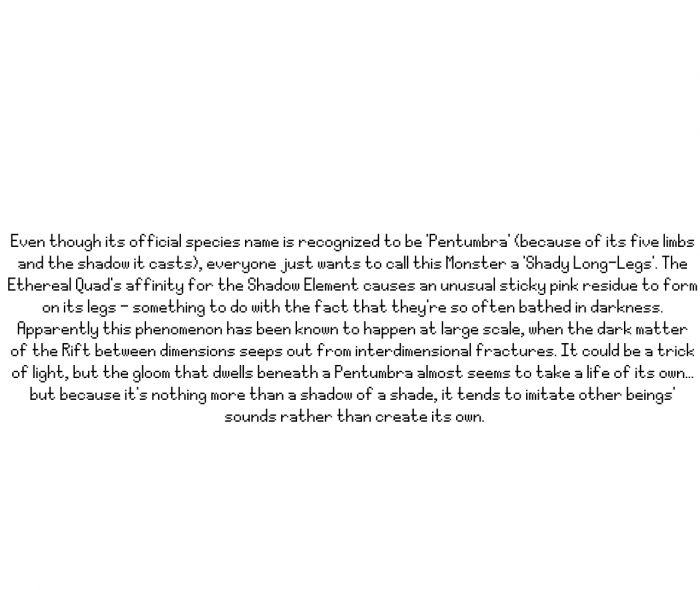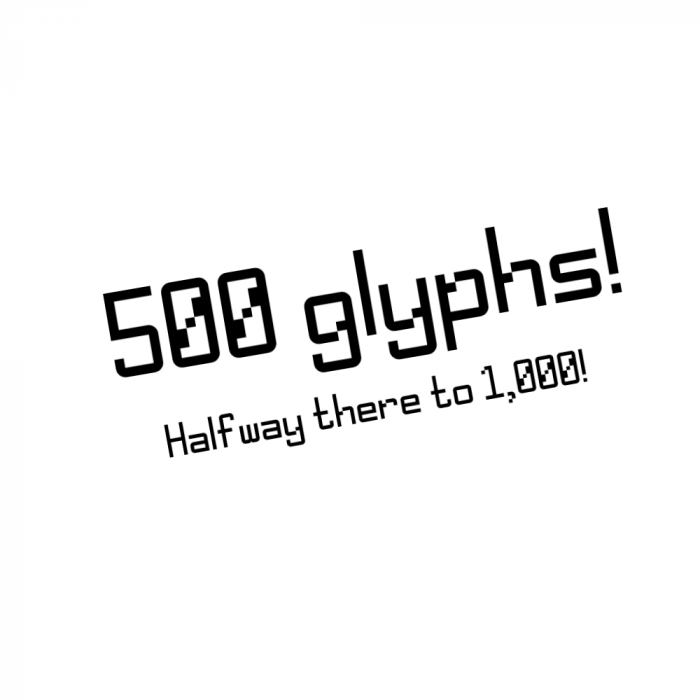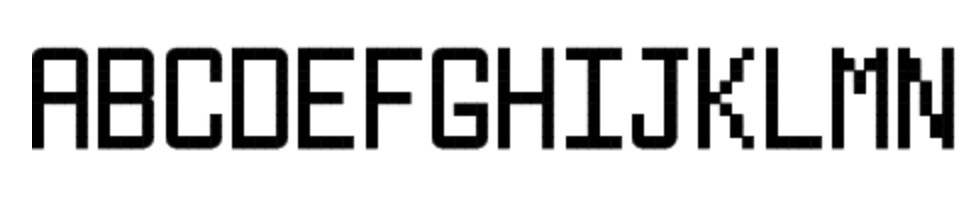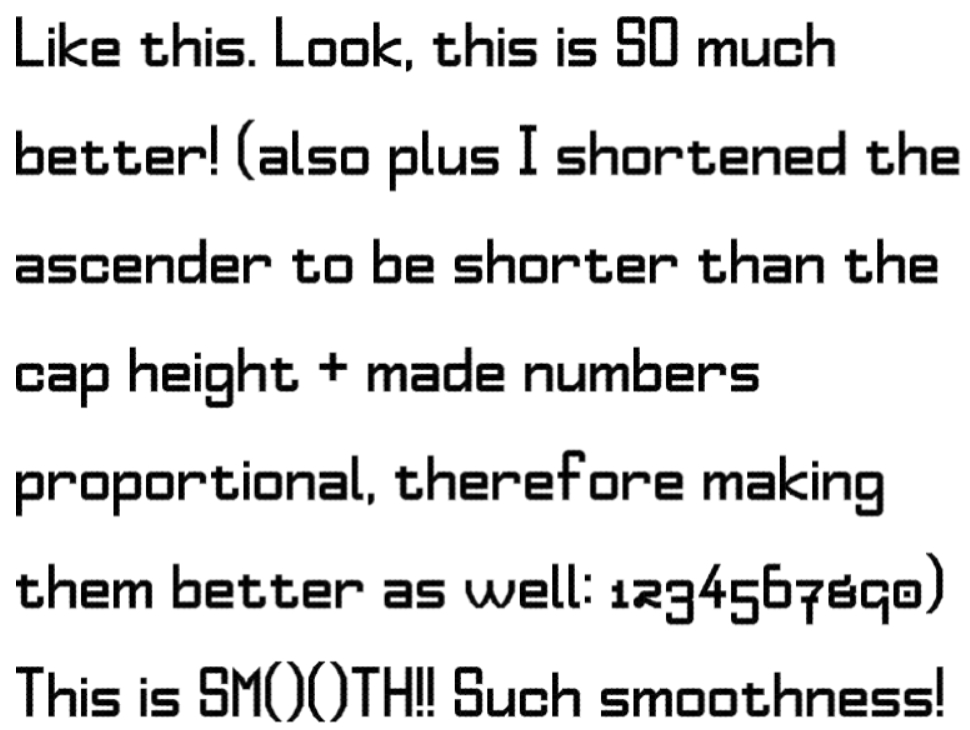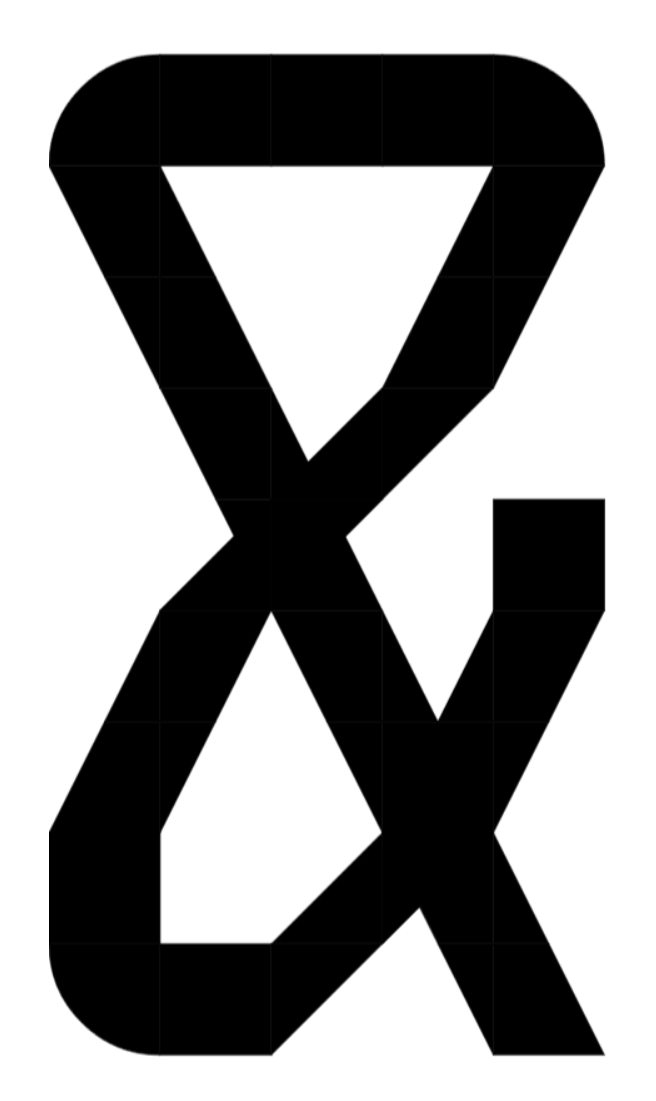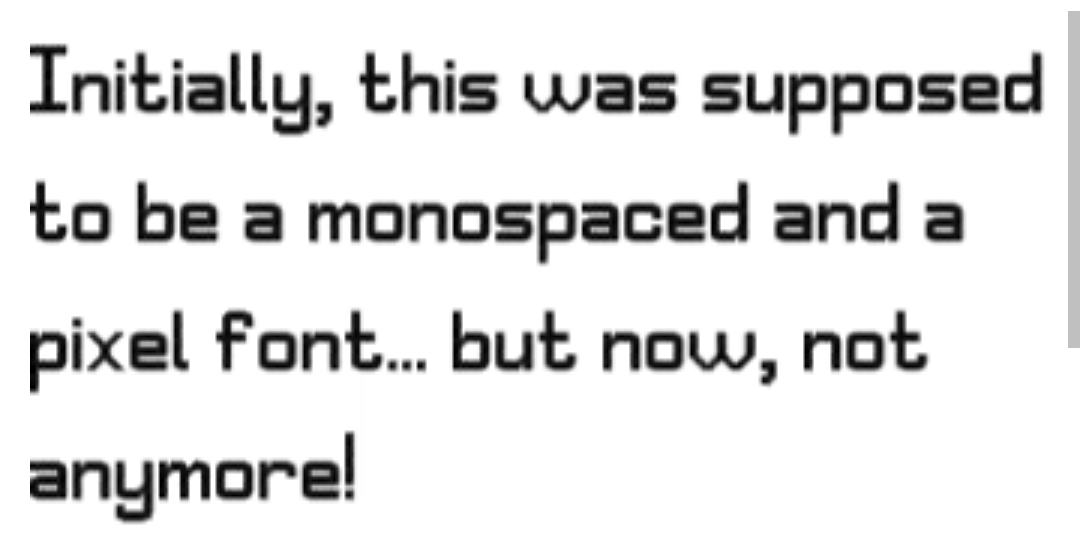
sample text:
no, this font isn't discontinued, i'm taking a break of it
finally this font has been updated after a long break
v1.0.2 is finally here
if more than 65,535 glyphs were possible, then i will rename it "THE ULTIMATE UNICODE FONT".
you really can't
@digitalio-2 depends on motivation
what do you mean motivation? it can't!
Is there a single Noto font that supports all Unicode?
There is no single universal "Noto font". One OpenType font can only hold 65,535 glyphs, and one Unicode character often needs more than one glyph. The Noto collection supports many more characters that can fit into one font. There are also additional technical limitations that makes creating a single global font impossible.
i had ratiod u
@digitalio-2 i know that more than 65,535 glyphs is not possible, but i hope in the future more than 65,535 glyphs will be possible.
i'm pretty sure it won't due to certain limits
Note: While FontDICTSelect format 4 allows for more than 65,535 glyphs, other parts of the OpenType format, such as the numGlyphs field of the 'maxp' table, are still constrained to 65,535 glyphs.
Which means that more than 65535 glyphs in a font file does exist, but still, Opentype and TrueType still limit to 65535 glyphs
@digitalio-2 and i forgot to say that, i thought the comment you posted (you really can't) was something mean, as in "erm you can't make a good unicode font!!! just give up and make a non-unicode font", so that's why i said "due to motivation".
wait seriously??? i mean like i'm trying to make a family-font (round digitalio) with compatibility for latin-ext-A
it's back
i'll turn this into an HD font, except some strokes which will stay pixelated
another sample
my god 500 glyphs is just basic latin, latin suplement-1 and latin ext A-B
@lucapri it's a mini-milestone
yea and i got 1k characters (i deleted it and forgor why)
@lucapri did you deleted it by accident?
no he did an irrepalable thing and he regretted it
it’s back again
updated fi, fl, ffi, ffl and st
almost completing latin ext.-B!
also updated ff.
i’m still here, it’s because i lost my interest in making fonts
i need to focus on fixing glyphs... 😴
i may remake my deleted font so that font will be easier to expand
i have finally fixed the letters with diacritics since they looked awful
completed google fonts basic ;)
latin extended-B is finally complete!
what do you guys think?
Sorry for late comment, but this update looks very good.